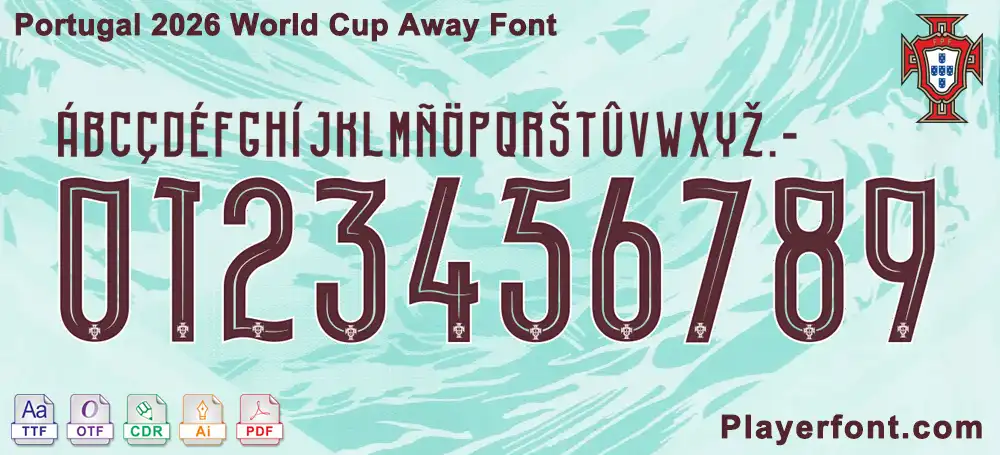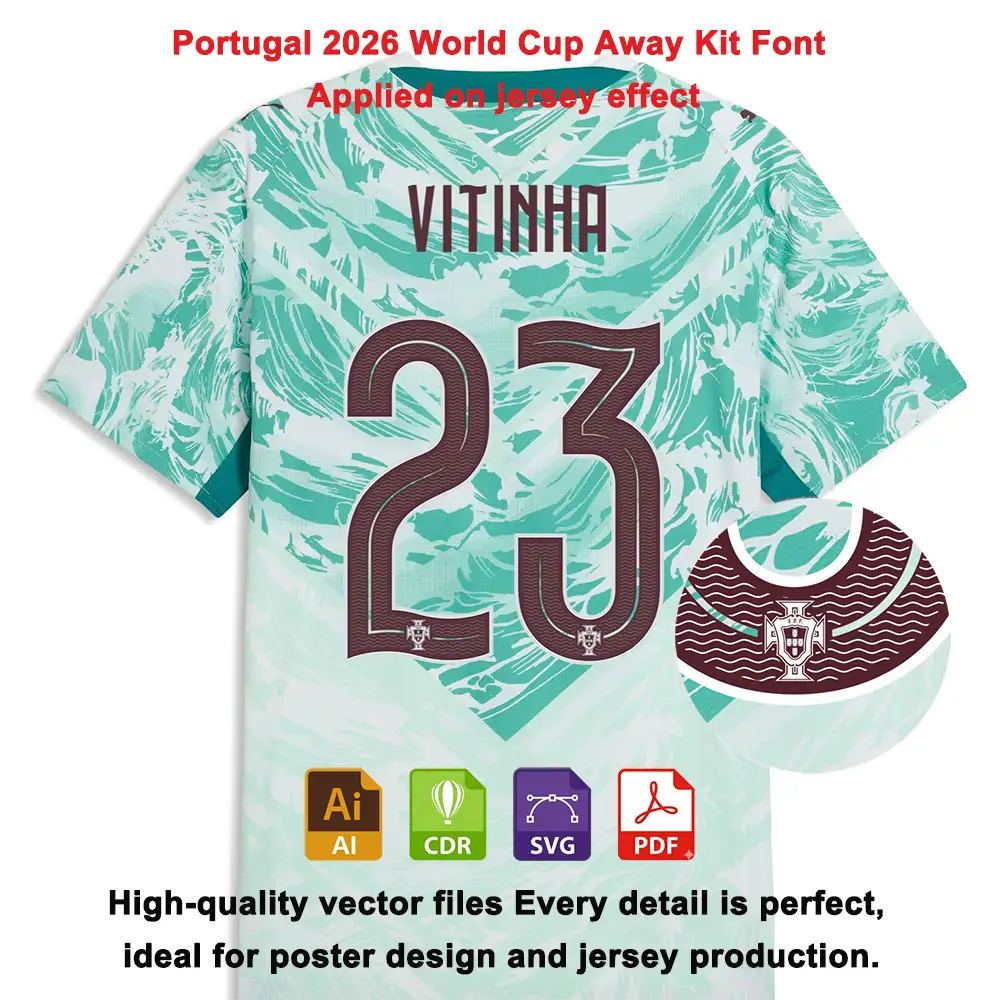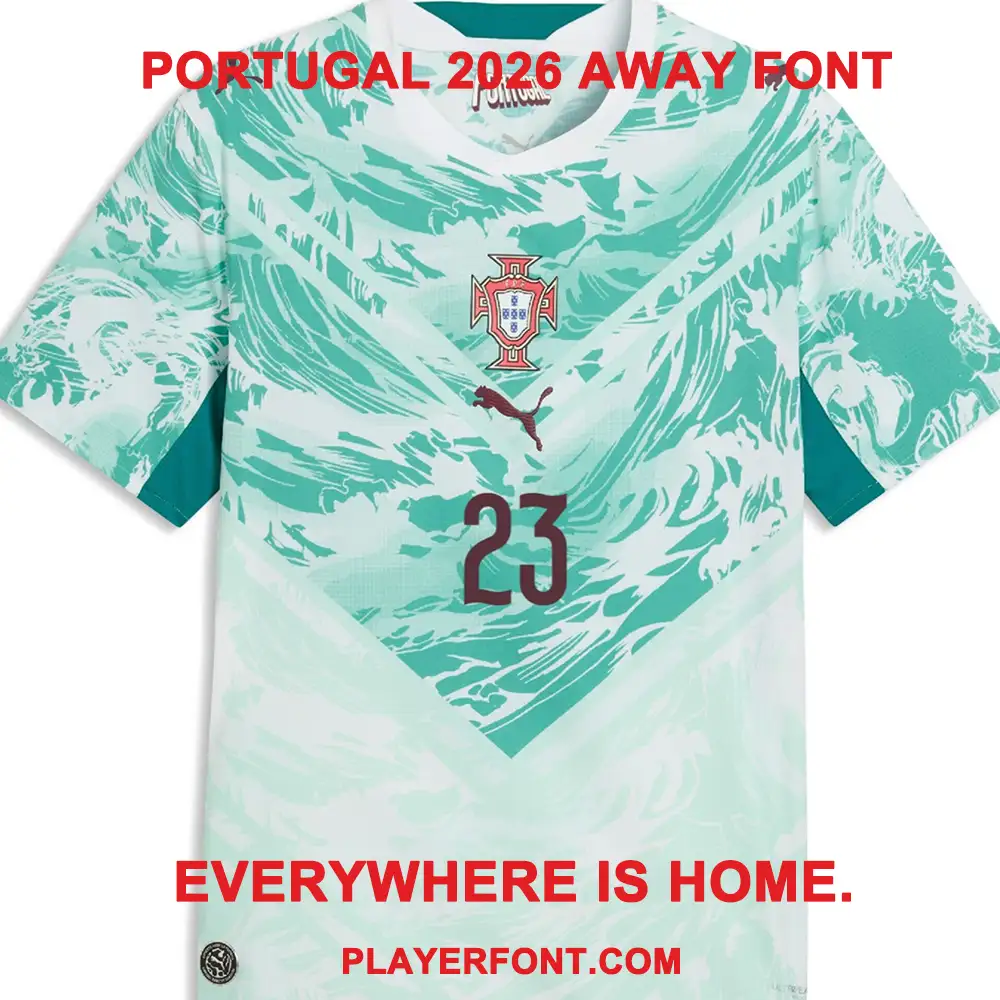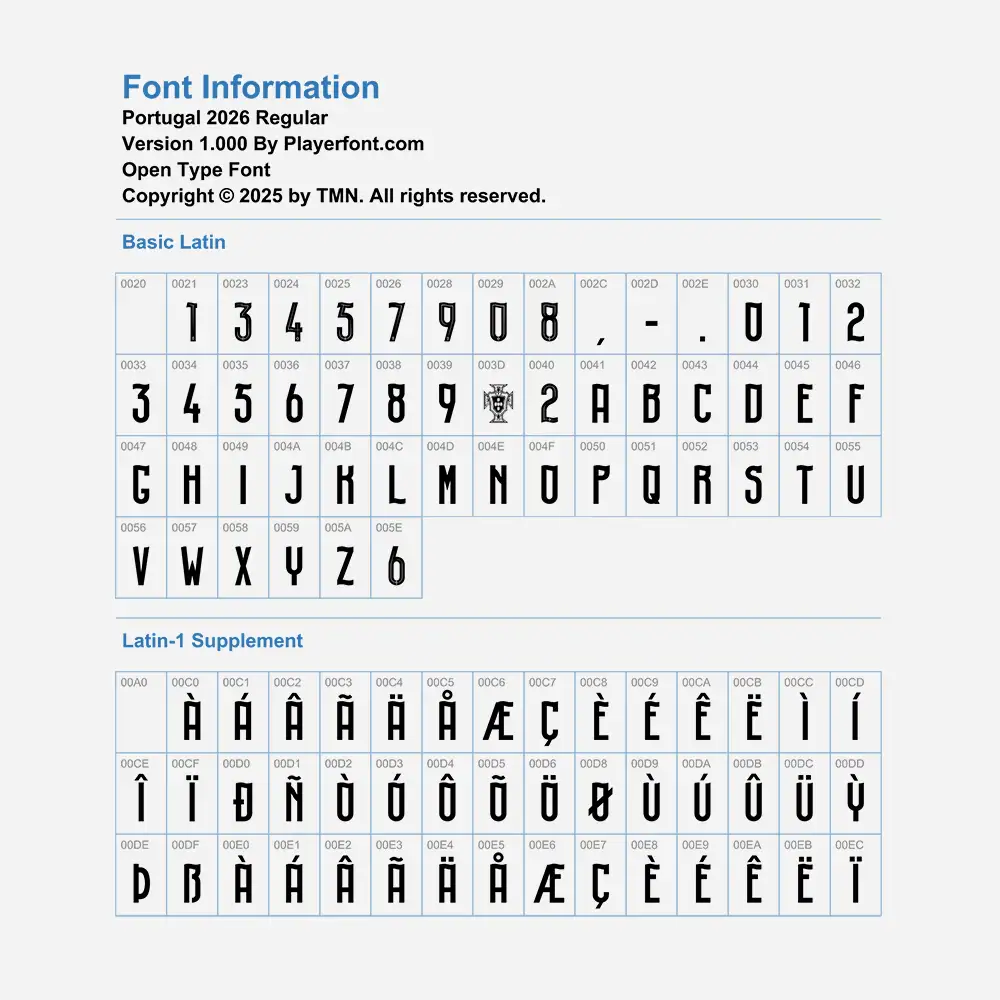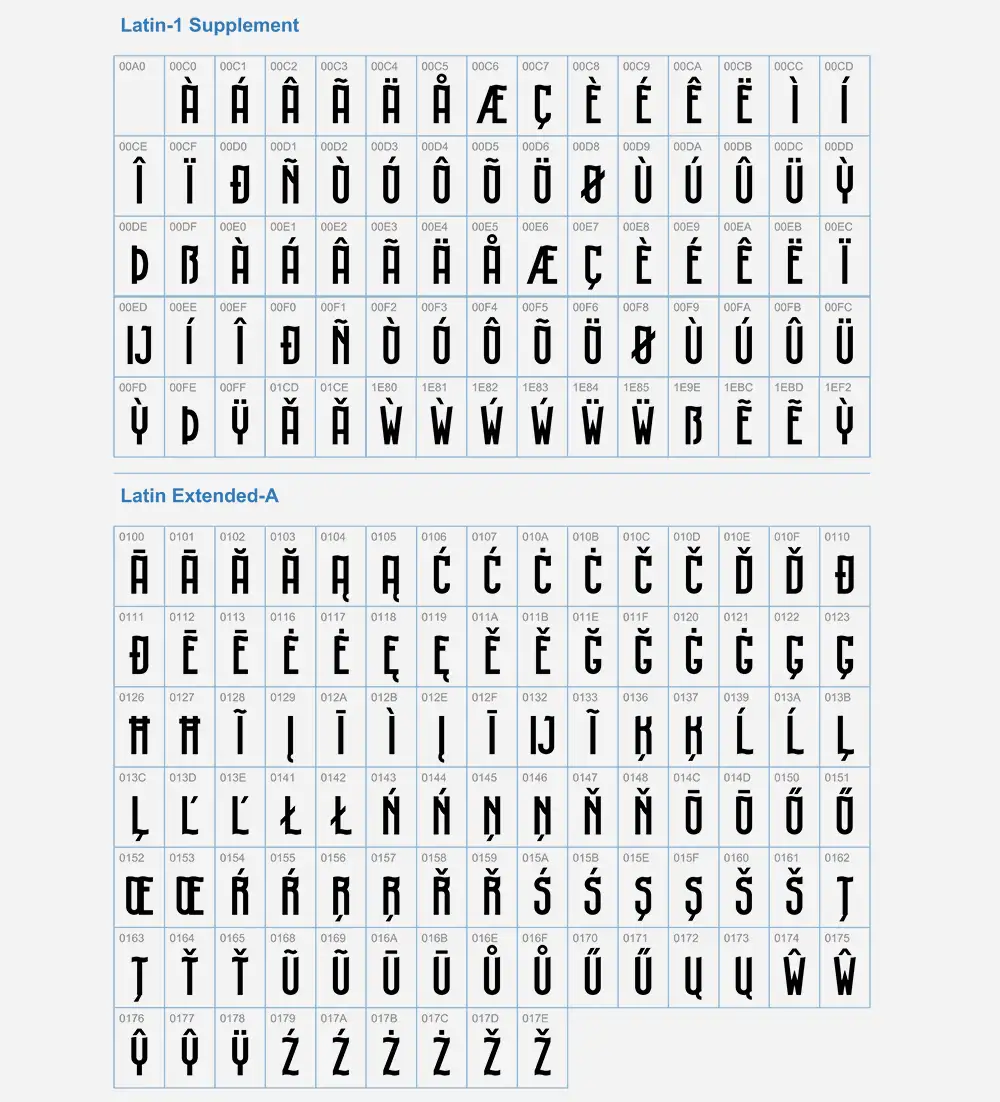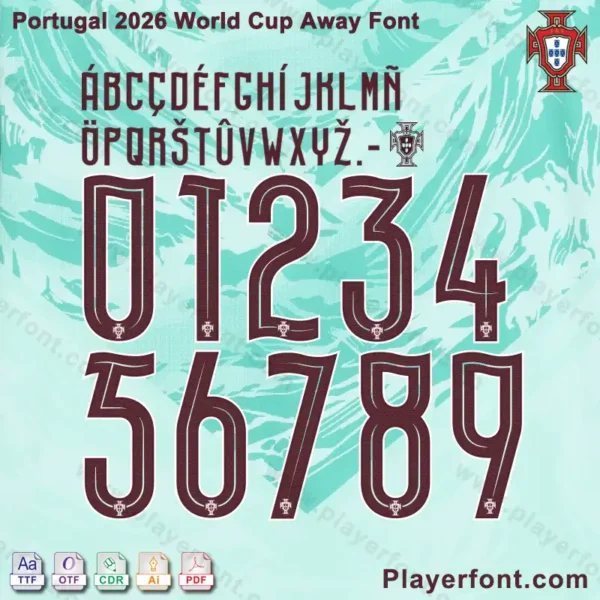
Celebrate Portugal’s maritime heritage and the “Connecting Heroes” era with the official Portugal 2026 World Cup Away Font. After the historic switch to Puma, Portugal’s 2026 away kit features a stunning “Green Lagoon” wave pattern, complemented by this bold, modern typeface.
This font isn’t just a simple lettering set; it’s a piece of footballing history. Each number is meticulously crafted with a double-line inline detail and includes the official Portuguese Football Federation (FPF) crest at the base, ensuring 100% authenticity for your creative projects.
Full Character Support: Complete Latin-1 Supplement and Extended-A characters (special accents like Á, Ç, É, Ñ, Õ) to support all player names.